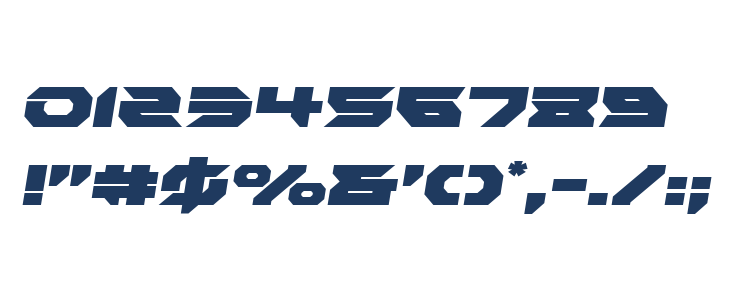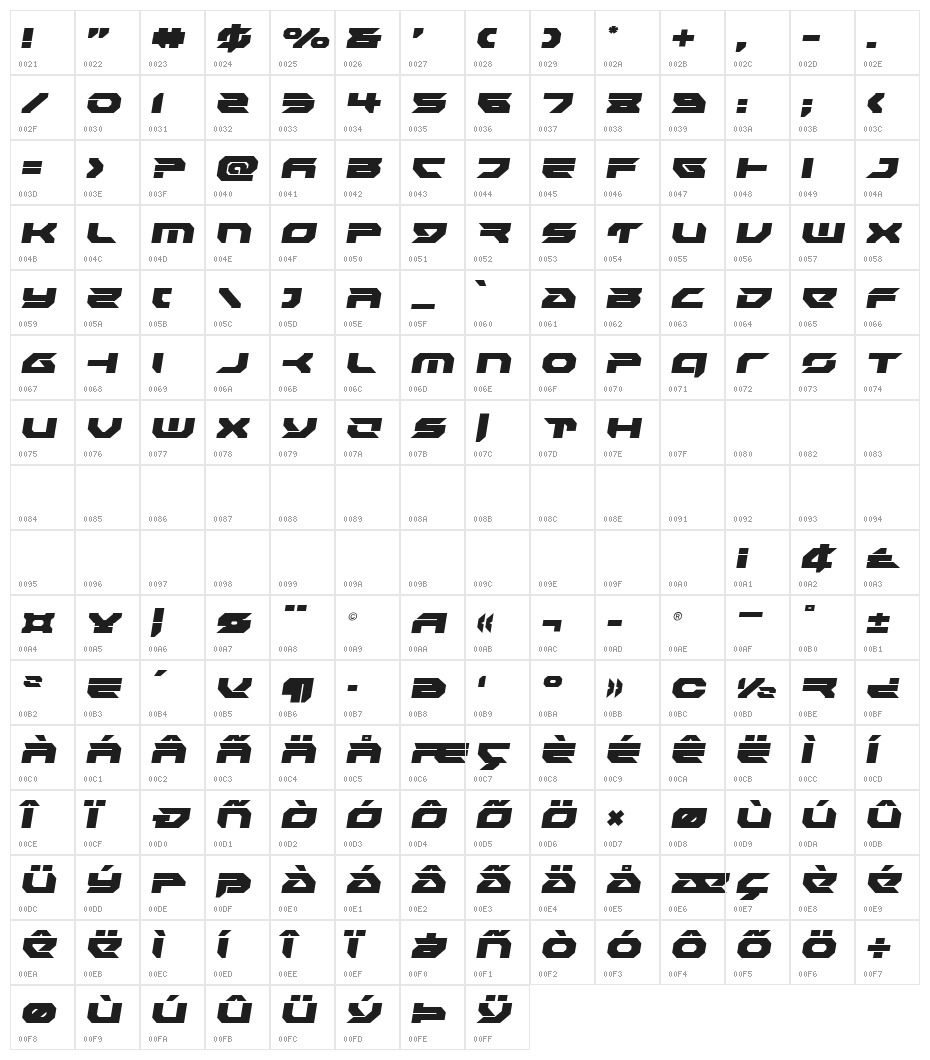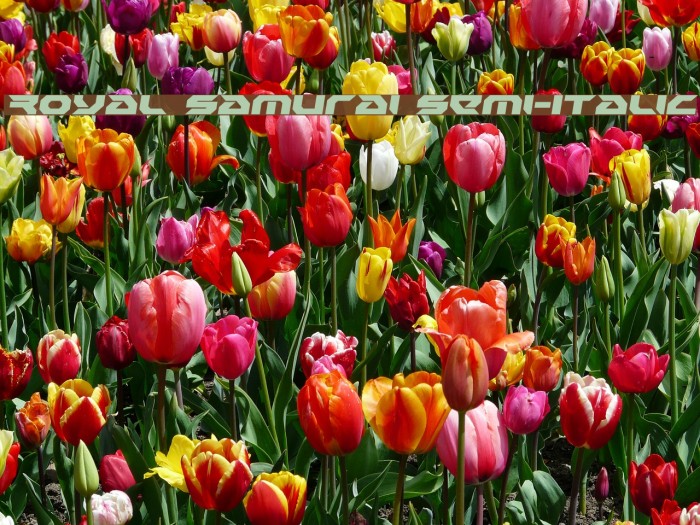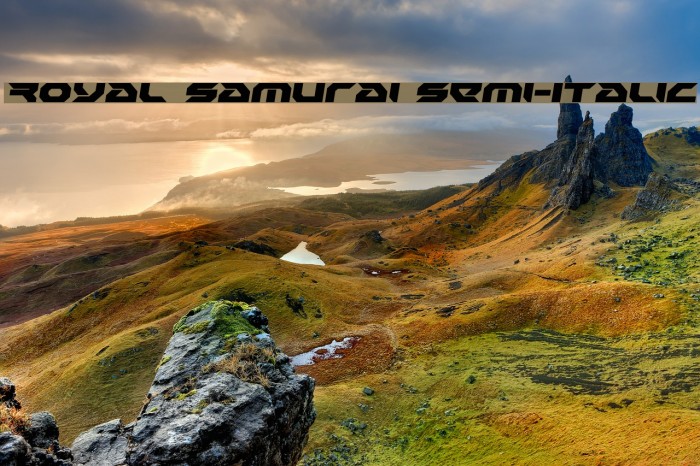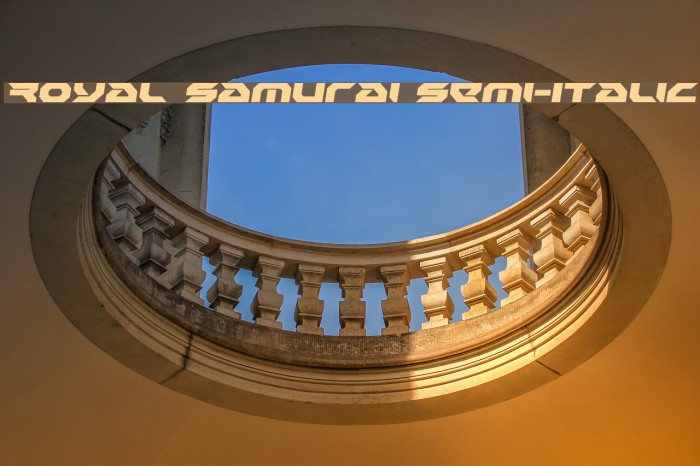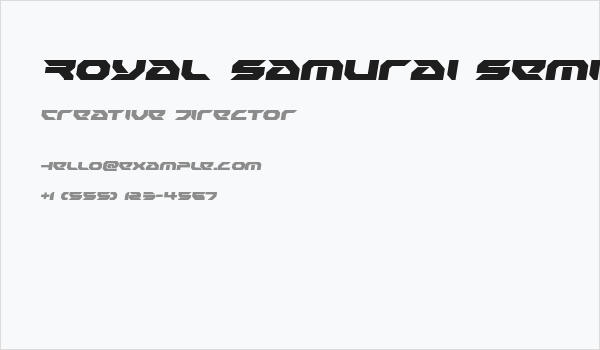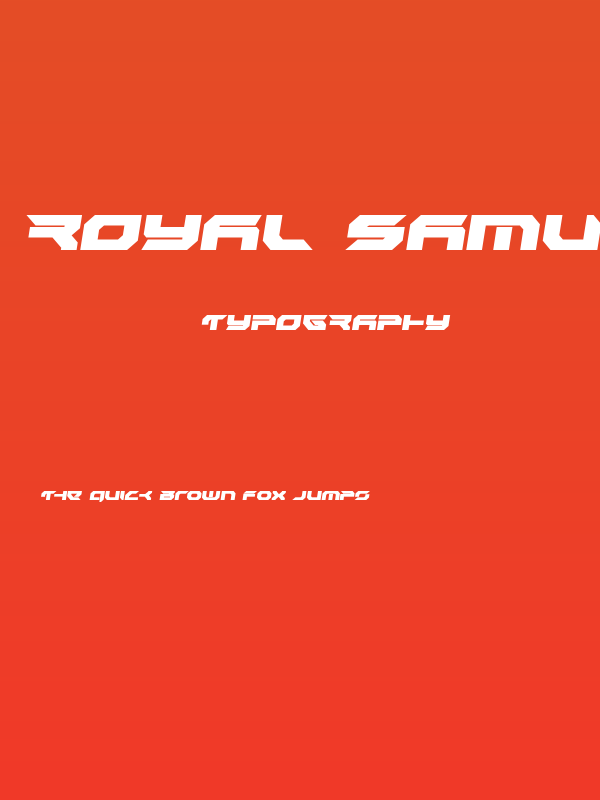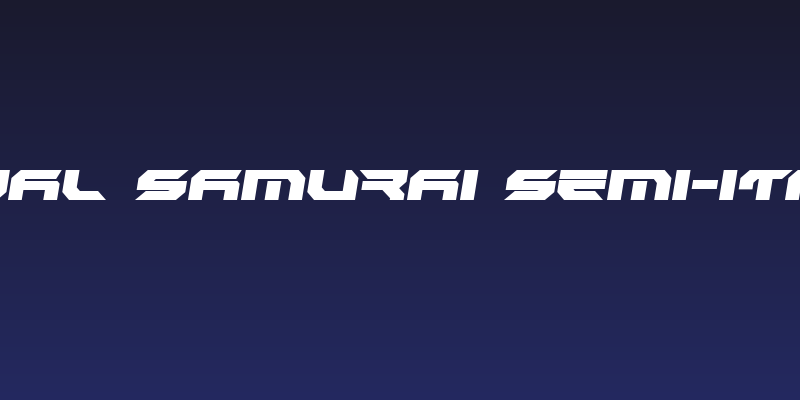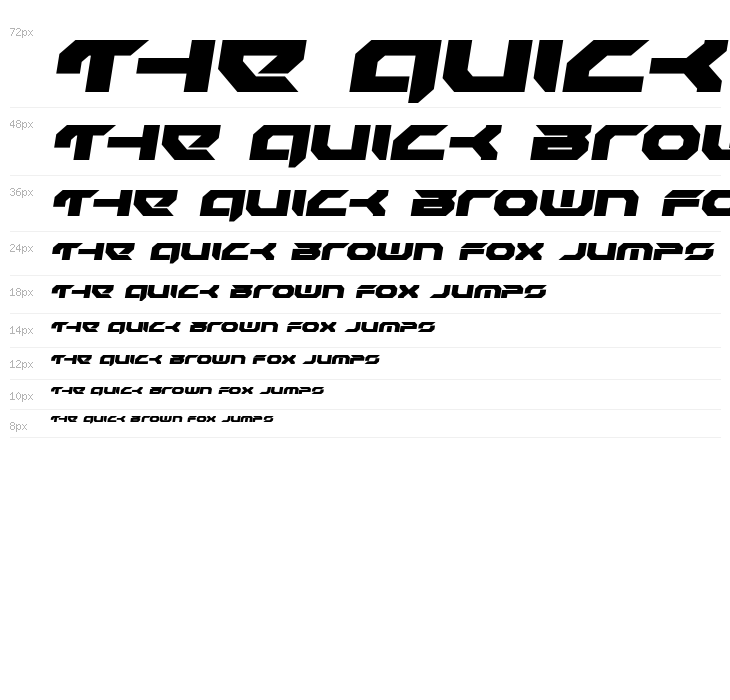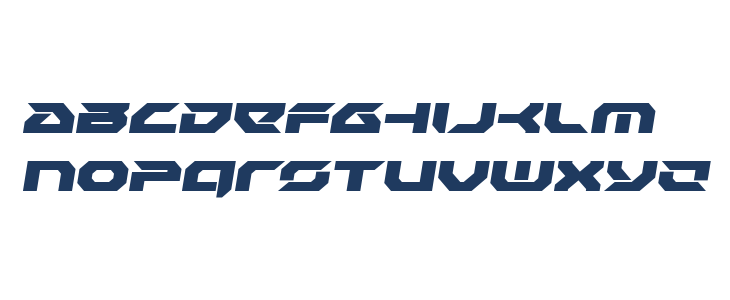
Royal Samurai Semi-Italic Font
Royal Samurai Semi-Italic Description
This font exudes a bold and dynamic presence with its sharp, angular lines and semi-italic slant. The characters are designed with a futuristic and aggressive style, reminiscent of samurai aesthetics. Each letter is crafted with precision, featuring distinct geometric cuts and edges that create a sense of movement and energy. The uppercase and lowercase letters maintain a consistent design, while the numerals and special characters complement the overall theme. This font is perfect for projects that require a strong, impactful visual statement.
Proposed ProjectsIdeal for video game titles, movie posters, branding for tech companies, and any project needing a strong, modern aesthetic.